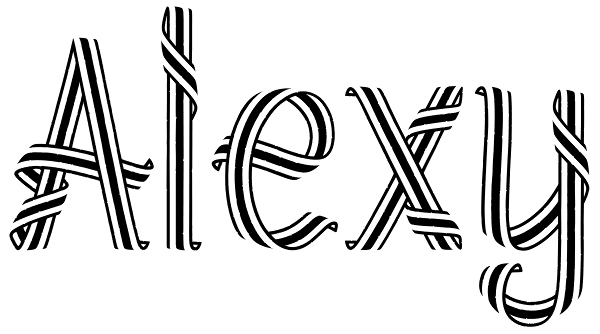
Alexy
Alexy is a hand-drawing of a twisted ribbon resembling a limited set of characters. Its unusual design makes it great as a headliner or it can be used for any ribbon awareness projects. Not suitable for signage use -- All lines are very jagged.